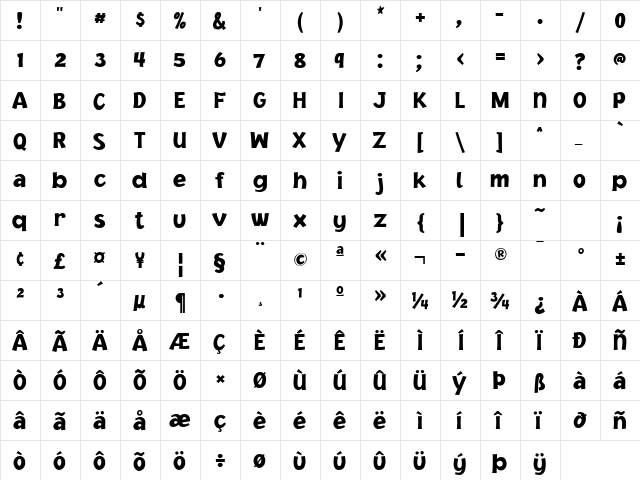
Jacoby ICG Black Regular
Design Context for Jacoby ICG Black Typeface
Jacoby ICG Black is a composed and adaptable typeface that performs quietly and consistently across a wide range of design contexts.